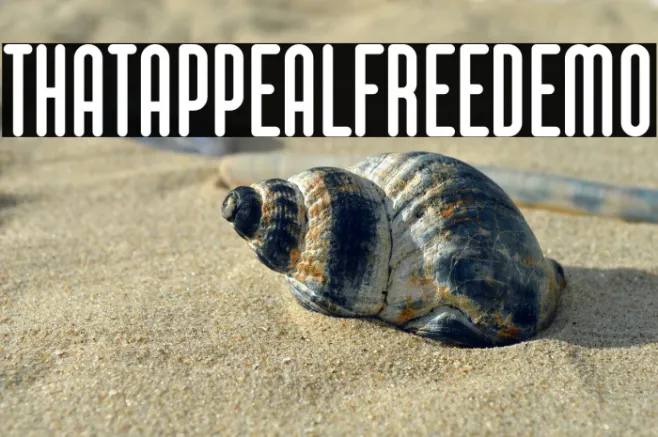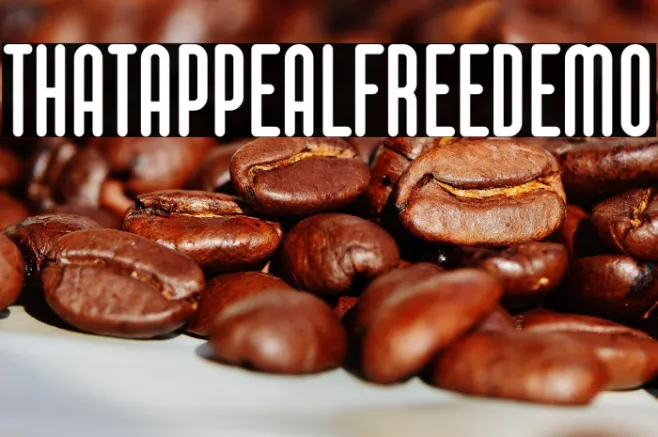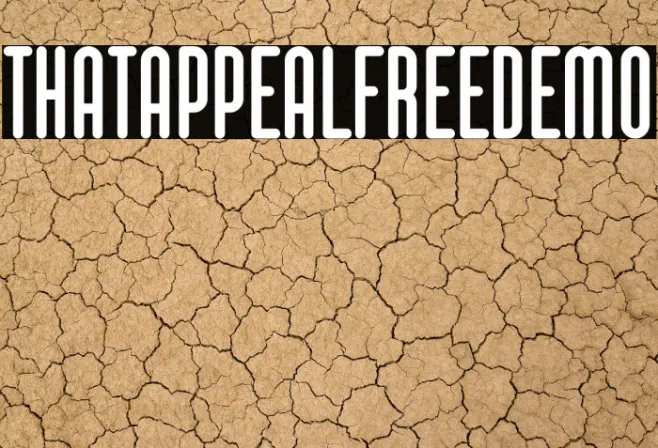
That Appeal Free Demo Font
That Appeal Free Demo Description
A tall, rounded, sans-serif font with a modern and playful appearance, featuring consistent stroke width and smooth curves.
| Overall Style | Modern, Friendly, Rounded |
| Use Case | Headlines, Logos, Branding, Display text |